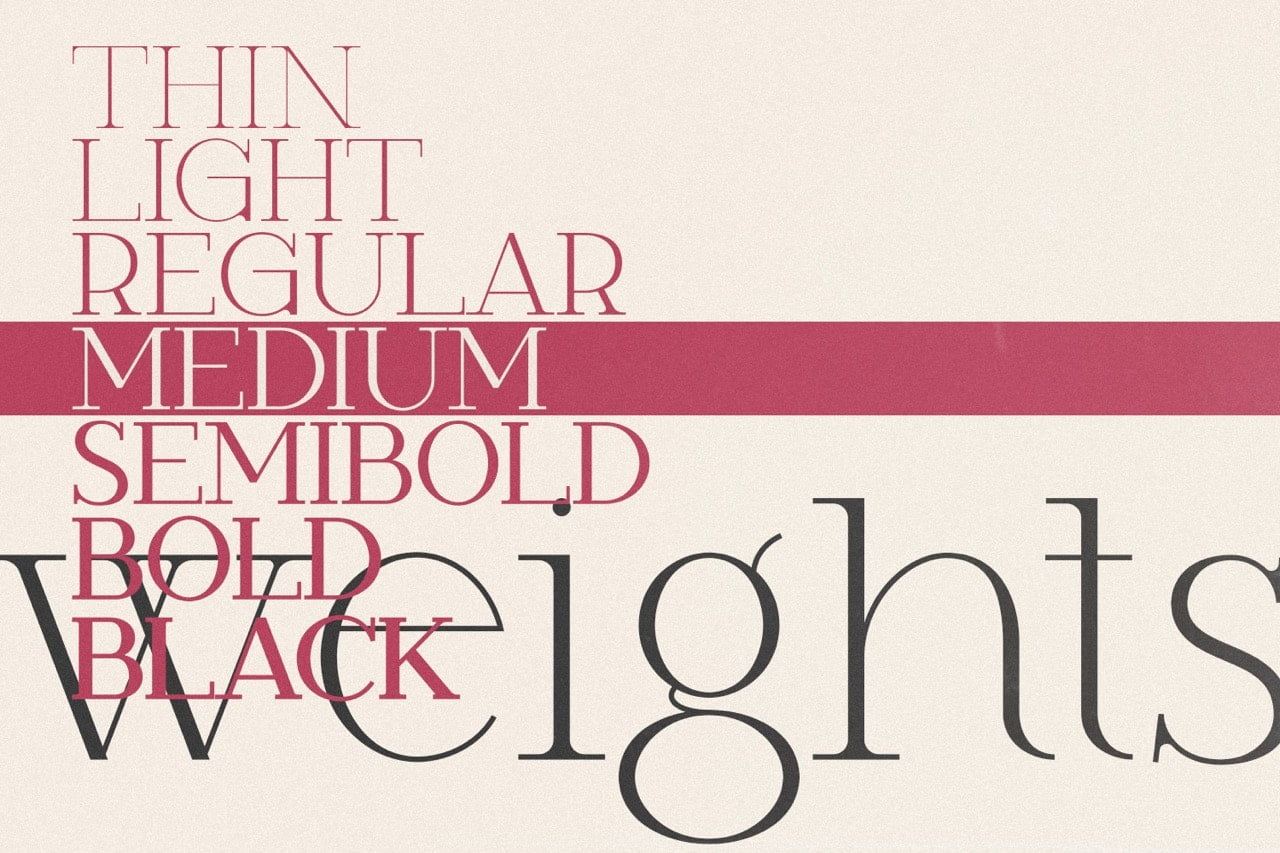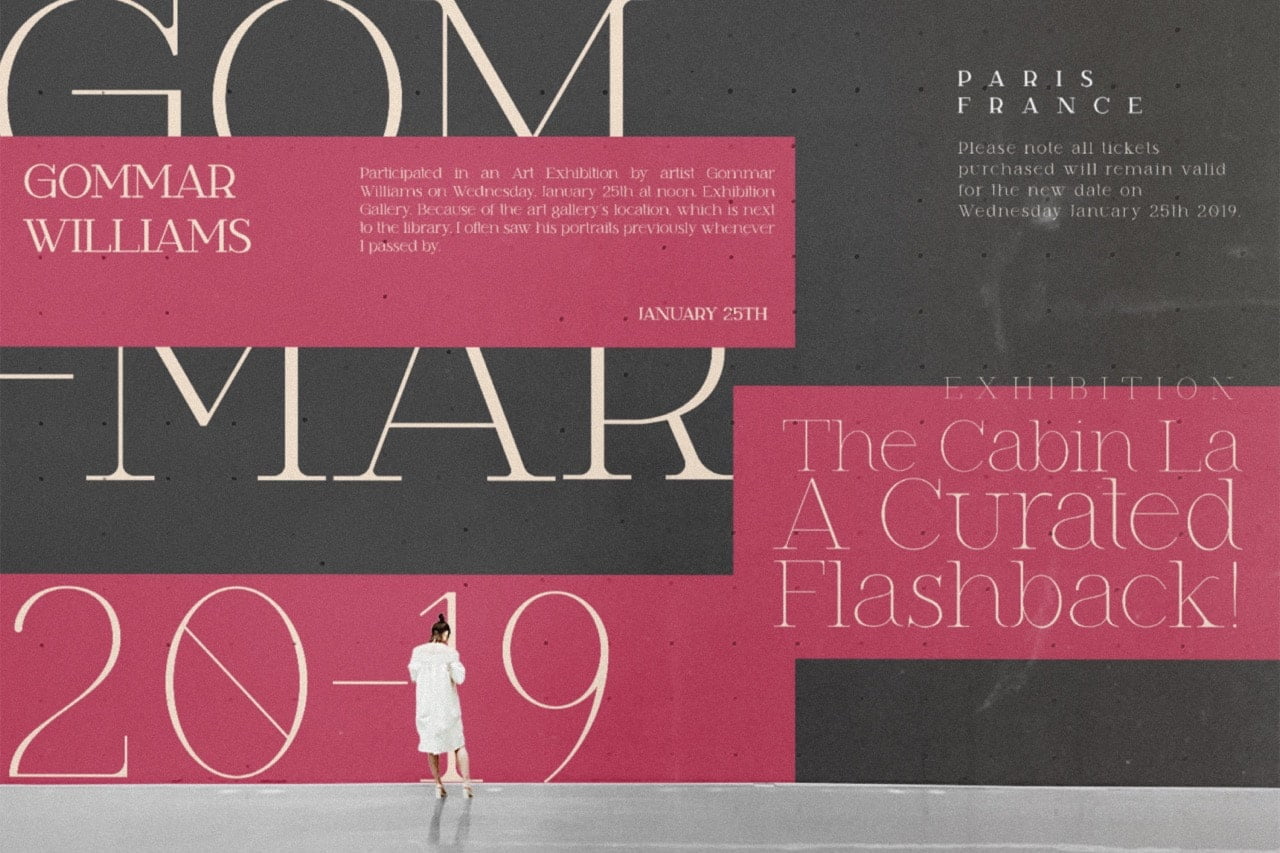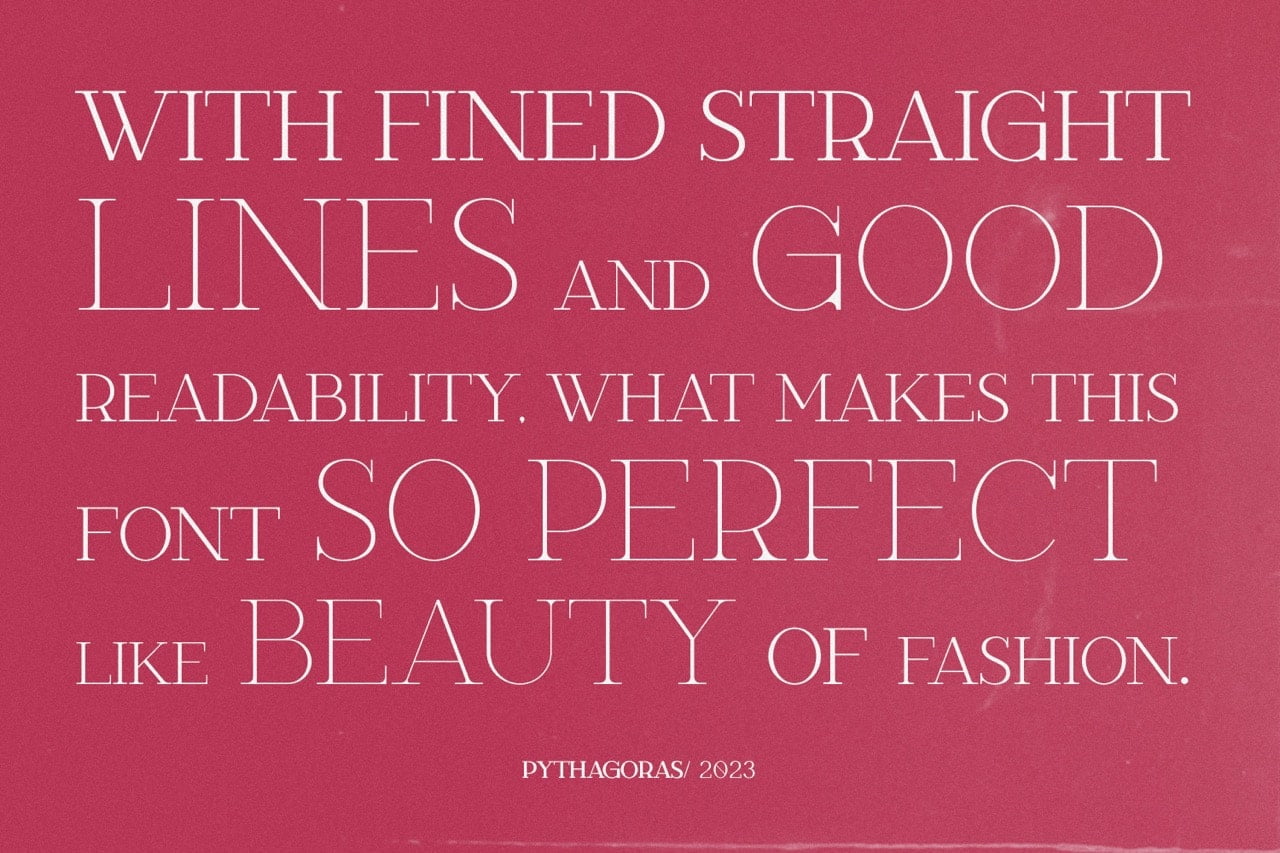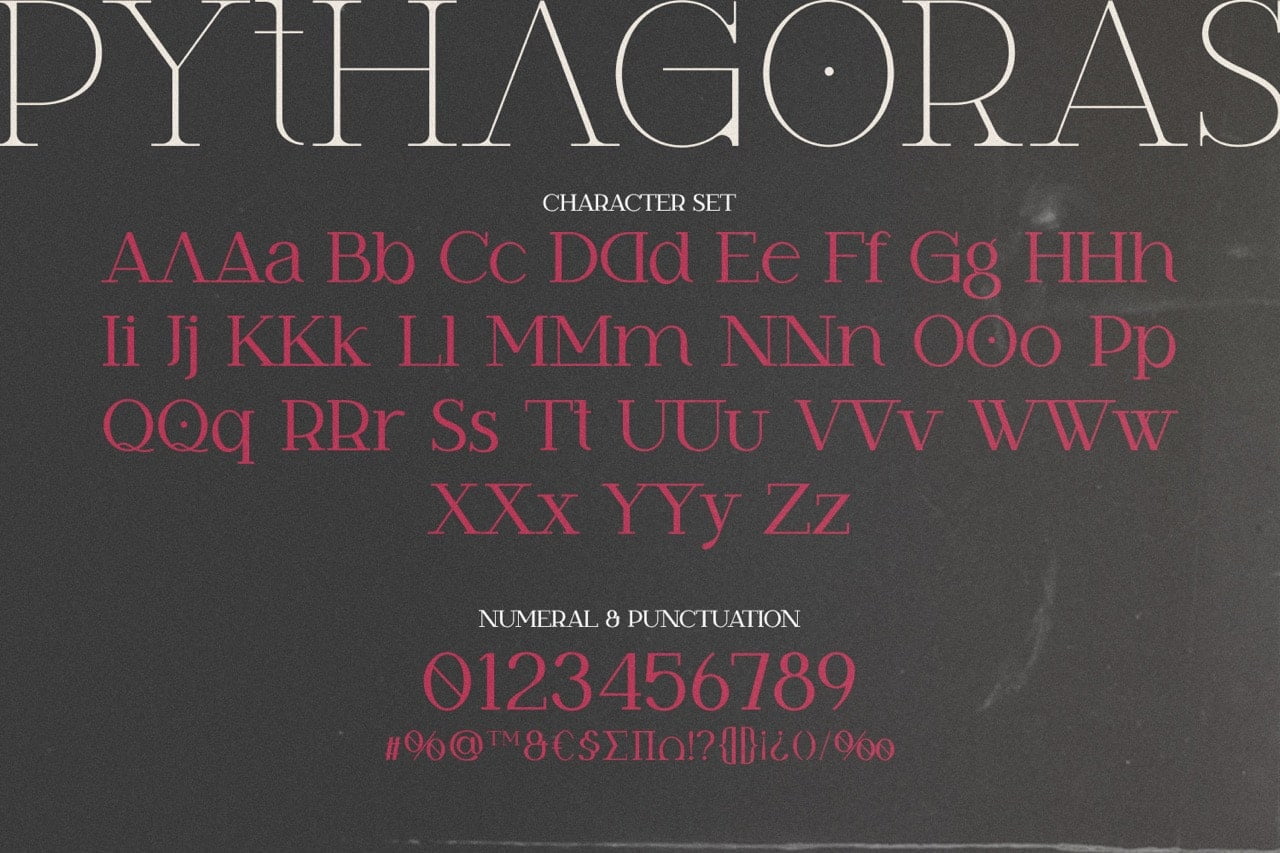
Are you looking for a font that is both modern and classic? Look no further than Pythagoras, the contemporary serif font with 7 weights. This versatile font is perfect for a variety of projects, from logos to book covers. Its clean lines and elegant design make it an excellent choice for those who want to make a statement with their typography. So why settle for a boring font when you can have Pythagoras?
- 7 Weights
- Stylistic Ligatures and Alternate Glyphs
Pythagoras Contemporary Serif